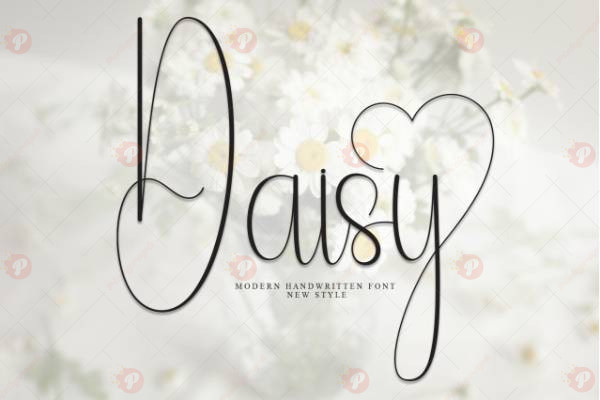
The Daisy Handwritten Free Font is a charming and playful handwritten script designed to add personality and elegance to your creative projects. Its fluid, natural strokes make it ideal for logos, branding, invitations, greeting cards, posters, packaging, and social media graphics.
Perfect for designers, bloggers, and creatives, this font brings a friendly, handcrafted feel to both digital and print designs, giving your projects a modern and stylish handwritten look.
Font Style: Handwritten / Script / Display Typeface
Perfect For: Logos, branding, invitations, posters, greeting cards, packaging, social media graphics
✨ Add a playful and elegant handwritten charm to your designs with Daisy Handwritten Free Font.